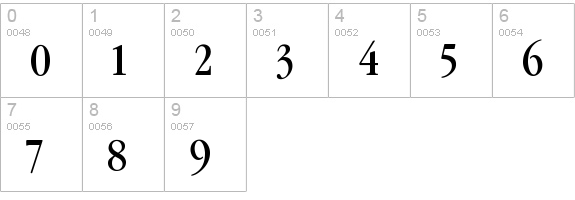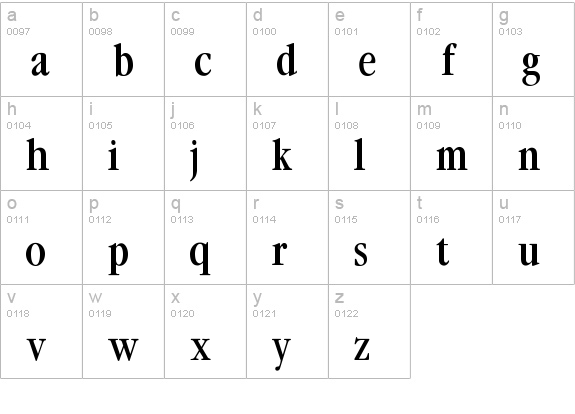
GaramondCondBook font is a timeless and elegant typeface that exudes sophistication and classic charm. With its condensed design, it offers a perfect balance between readability and space efficiency, making it an ideal choice for various print and digital projects. This font showcases the renowned Garamond style with a modern twist, featuring slender and graceful letterforms that effortlessly captivate the eye. Its clean lines and refined proportions give it a polished appearance that is both professional and visually pleasing. GaramondCondBook font is highly versatile, suitable for a wide range of applications such as editorial design, branding, packaging, and advertising. Its legibility ensures that your message will be conveyed with clarity and impact, while its timeless appeal guarantees a lasting impression. One of the most remarkable aspects of GaramondCondBook font is that it is freely available to download at FontsMarket.com. This means that you can effortlessly access and utilize this exceptional typeface in your projects without any financial constraints. Whether you are a professional designer or an aspiring creative, this font offers you the opportunity to elevate your work with its refined aesthetic, all at no cost. So, why wait? Experience the beauty and versatility of GaramondCondBook font today by visiting FontsMarket.com and easily downloading it to enhance your creations. With its free availability and undeniable allure, this font is a valuable asset that will undoubtedly elevate the visual impact of your designs.